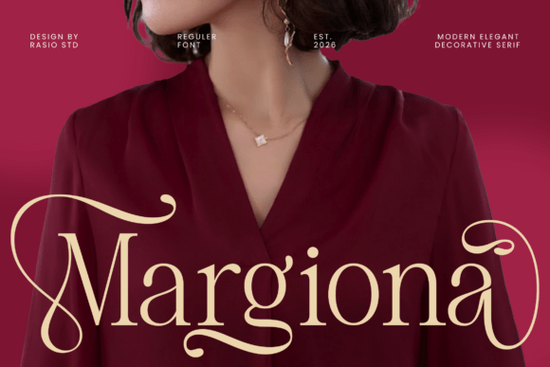
Designers, crafters, and small business owners looking for a unique way to elevate their visual projects might find that the right font can make all the difference. Margiona Font is a standout choice for those who want to add a touch of elegance and drama to their work. With its combination of classic structure and modern flair, this decorative serif font brings a sense of sophistication that’s perfect for high-end branding and artistic expression.
Margiona Font is ideal for creating eye-catching headings and titles that demand attention. Its flowing swashes and intricate details give it a theatrical quality, making it a great fit for wedding invitations, luxury packaging, and editorial designs. The font’s balanced proportions and refined typography ensure that it looks polished whether used in print or digital formats.
If you're working on a project that requires a touch of romance and grandeur, Margiona Font offers a versatile solution. It pairs well with rich textures, vibrant imagery, and deep color palettes, allowing your design to feel both luxurious and timeless. Whether you're designing for a boutique brand or a creative hobby, this font can help you achieve a professional and stylish look.
How Does Margiona Font Compare to Other Serif Fonts?
When compared to other serif fonts, Margiona stands out for its unique blend of traditional and contemporary elements. Unlike more rigid or formal fonts, it brings a sense of movement and fluidity that can add visual interest to any layout. This makes it a great alternative to more standard serif typefaces like Acreme Bloom Font or Olde Victorian Font, which have their own distinct styles but may not offer the same level of artistic flair.
For those looking for a bold and impactful option, the Bold Serif Bundle Font offers a range of similar styles that can be used together for a cohesive design. If you’re interested in a more delicate and ornate look, the Lover Roses Font provides a softer, more floral aesthetic. Each of these fonts has its own strengths, but Margiona Font is particularly well-suited for projects that require a dramatic and elegant presence.
Best Uses for Margiona Font
Margiona Font works exceptionally well in a variety of applications. For example, it’s a popular choice for premium wedding invitation suites, where its refined style adds a sense of exclusivity and class. It also shines in high-end product labeling, such as for boutique fragrances or wineries, where the font’s visual appeal can enhance the overall brand image.
Another common use is in luxury resort signage, where the font’s elegant curves and strong presence can create a welcoming yet sophisticated atmosphere. In cinematic editorial designs, Margiona Font helps set the tone for stories that require a sense of drama and refinement. Its versatility makes it a valuable addition to any designer’s toolkit.
Why Choose Margiona Font for Your Projects?
One of the main reasons to consider Margiona Font is its ability to transform simple text into a visually striking element. Its detailed calligraphic features and dynamic flow make it ideal for headlines, logos, and other prominent design elements. This font is especially effective when used in conjunction with rich backgrounds or high-quality images, as it allows the negative space to breathe and enhances the overall composition.
For designers who want to maintain a consistent and professional look across multiple projects, Margiona Font offers a reliable and stylish option. It’s easy to use, well-designed, and suitable for a wide range of applications. Whether you’re working on a personal project or a commercial one, this font can help you achieve a high level of visual impact without compromising on readability or clarity.
As you explore different fonts for your next design, keep in mind that Margiona Font is a strong contender for any project that requires a touch of elegance and sophistication. Its unique blend of classic and modern elements makes it a valuable asset for anyone looking to elevate their creative work.
Before finalizing your design, take a moment to test Margiona Font in different contexts. Try it with various background colors, images, and layouts to see how it performs in real-world scenarios. This will help you determine if it’s the right fit for your specific needs and goals.